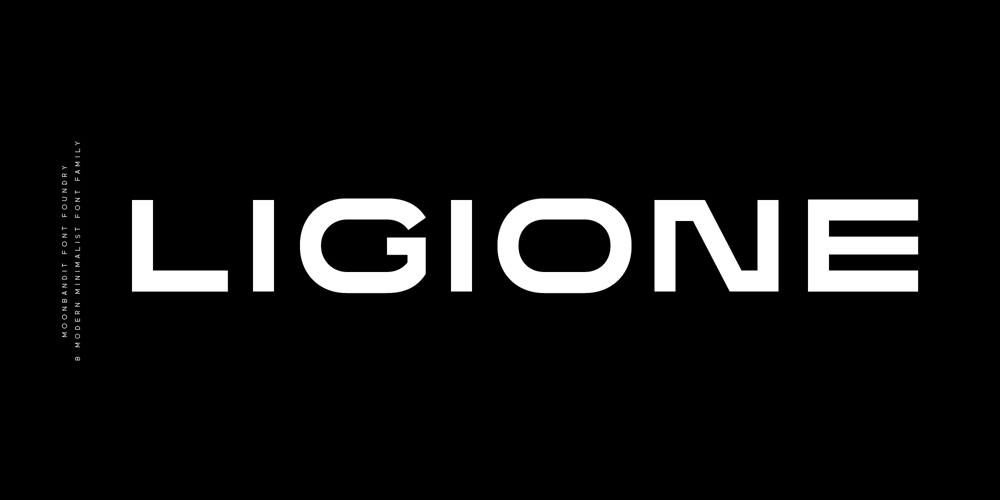
MBF Ligione Font Family was designed by Bramaji Dipa Manggala and published by Moonbandit. MBF Ligione contains 8 styles and family package options. Ligione is a multi function font family, consist of uppercase and lowercase with 4 weight and 4 width option making it a big 8 styles in total. This typeface is a modern display sans serif packed with a geometric modular assembly in mind, combine the regular and expanded style for a unique touch on your design. This font is perfect for a big size display, title, body text and even logo.